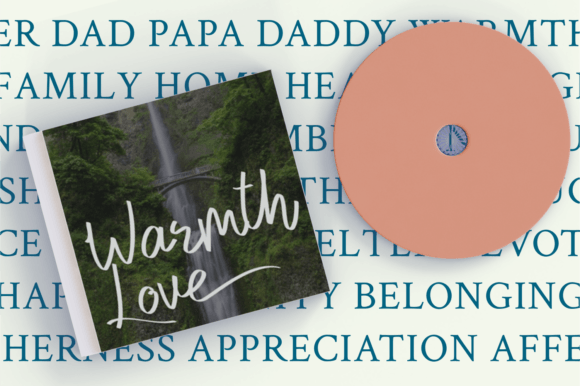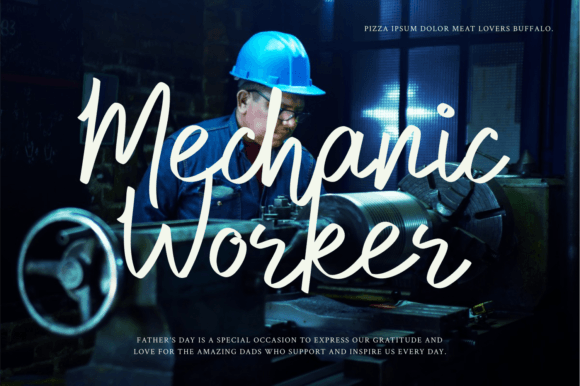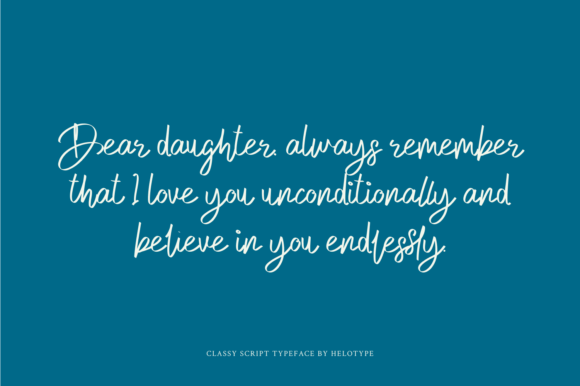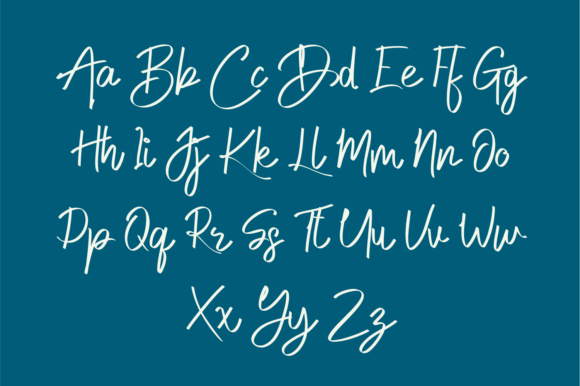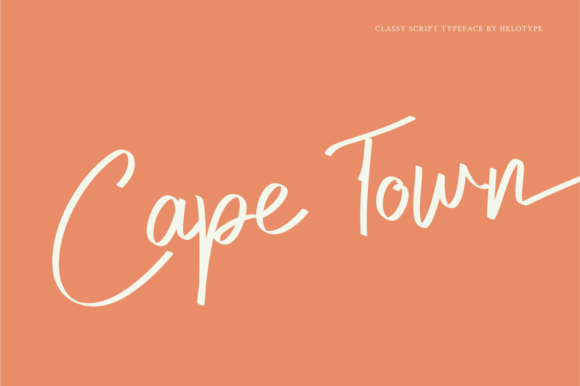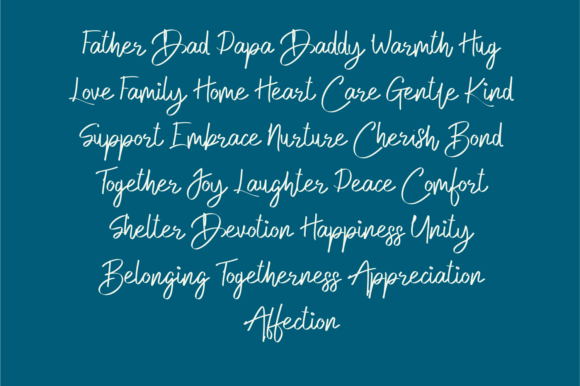
Introduction to Gentle Dad Font
As a designer, there’s nothing quite like the feeling of bringing a creative project to life. It’s that moment when all the elements come together – color, texture, typography – and you step back to admire your handiwork. For me, it’s often a font that sets the tone for the entire design. And, if I’m lucky, it’s a high-quality, free download that makes my job just a little bit easier.
Enter the Gentle Dad Font, a stunning script that embodies the very essence of fatherly love. With its transparent background and versatility, this design resource is a must-have for any creative project. Whether you’re working on a Father’s Day card or a custom mug, the Gentle Dad Font is sure to add a touch of warmth and personality to your design.
As a valuable addition to your design arsenal, the Gentle Dad Font offers a comprehensive range of uppercase and lowercase letters, ligatures, stylistic alternatives, numbers, and symbols. Its simplicity belies its immense design flexibility, making it the perfect choice for designers looking to add a unique and exclusive flair to their work.
Key Features of Gentle Dad Font
- High-quality, unique font design suitable for creative projects and design resources.
- Features a transparent background, allowing for easy integration into various design elements.
- Comes in a single size, 400 units per em, with a resolution of 1024 x 1024 pixels, ensuring crisp and clear display.
- Designed to evoke a sense of warmth and approachability, making it perfect for projects that require a gentle, fatherly tone.
Honest Review: Gentle Dad Font
I recently had the chance to try out the Gentle Dad Font, and I must say, it’s a great addition to any designer’s toolkit. The font itself is quite charming, with a friendly and approachable vibe that’s perfect for creative projects where you want to convey a sense of warmth and personality.
- High-quality design that’s clear and legible
- Works well in a variety of contexts, from children’s books to social media graphics
- Transparent background, making it easy to customize and integrate with other design elements
- Not ideal for professional or formal contexts, where a more serious font may be preferred
- May not be suitable for large blocks of text, where readability can be a concern
Overall, I’m impressed with the Gentle Dad Font. It’s a great design resource that’s perfect for designers looking for a high-quality, free font that can add a touch of personality to their creative projects.
Gentle Dad Font
Tips for Getting the Most Out of Gentle Dad Font
Ensure you have a transparent background for your design to make the most of the Gentle Dad Font’s unique design. Experiment with different font sizes, colors, and combinations to achieve the desired effect.
The Gentle Dad Font is suitable for various design projects, including blog posts, social media graphics, and print materials. Its clean and modern design makes it an excellent choice for creative professionals and hobbyists alike.